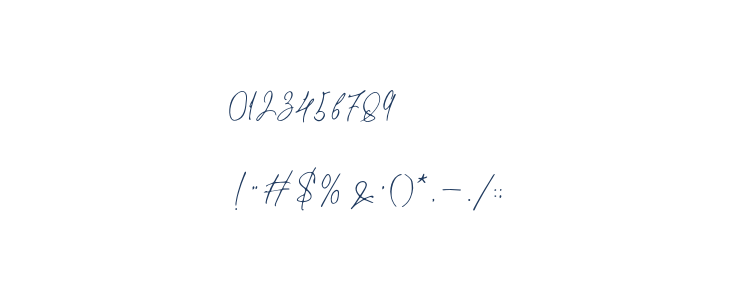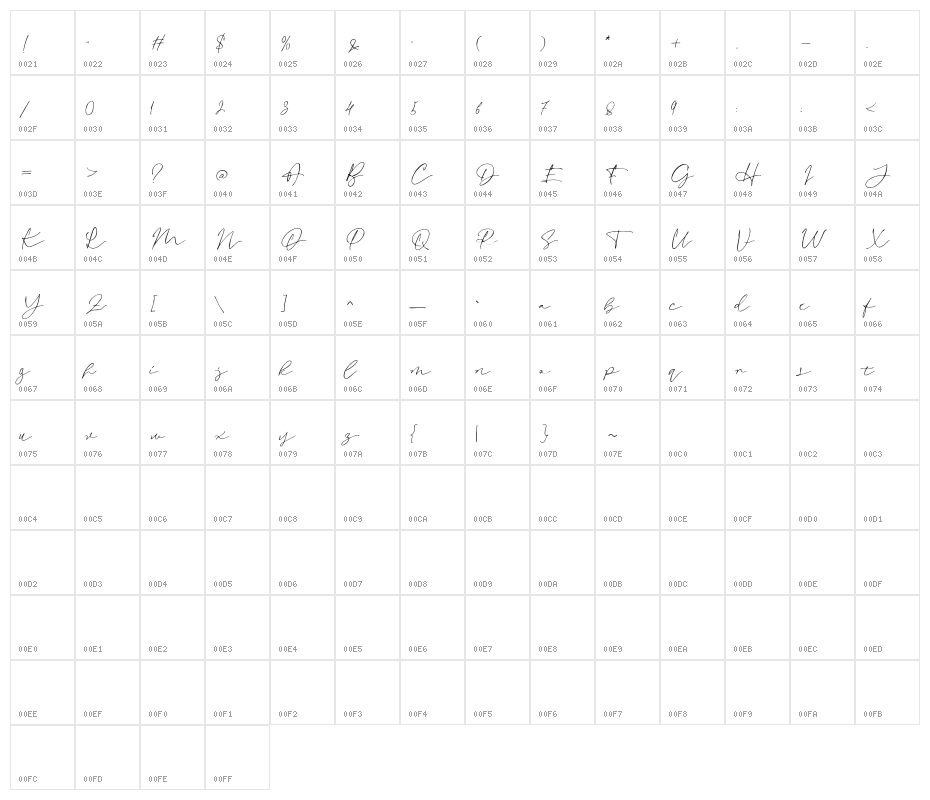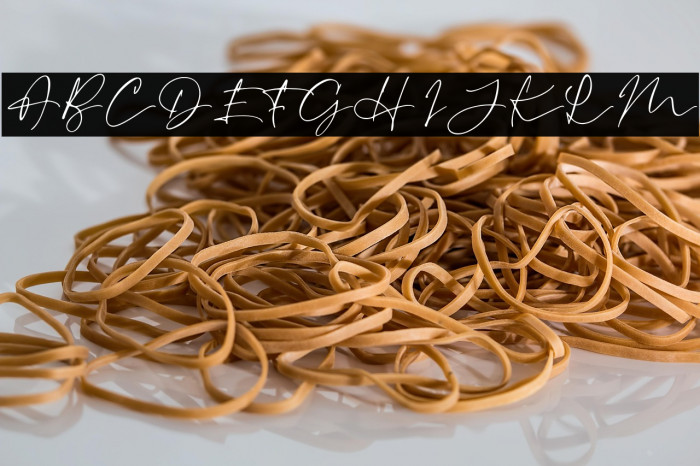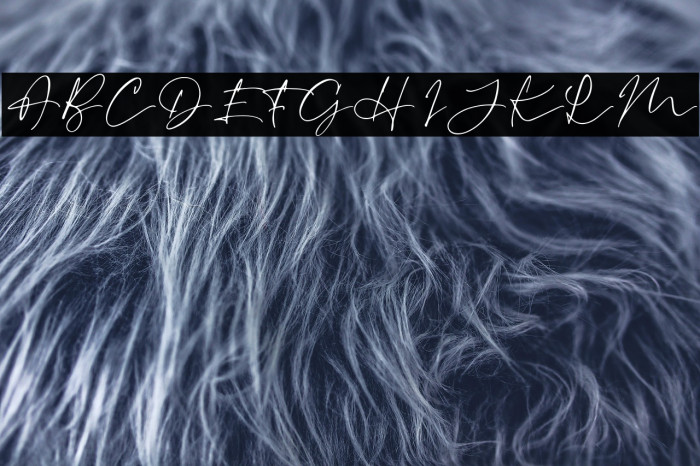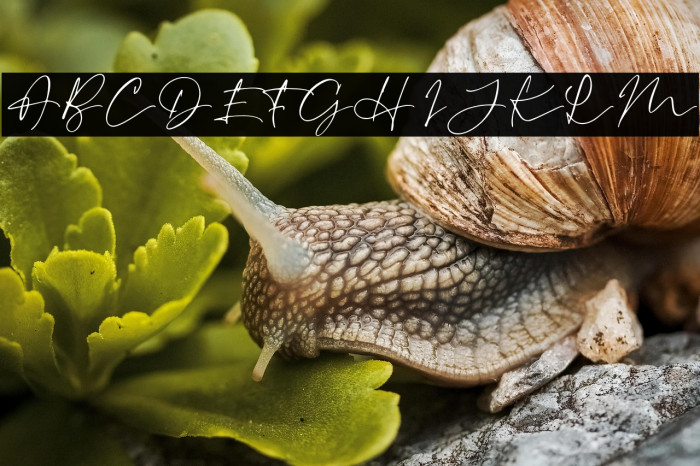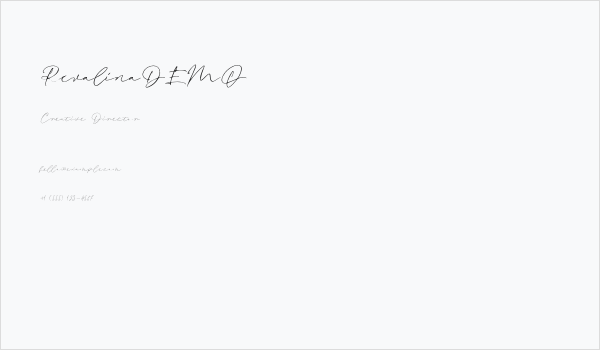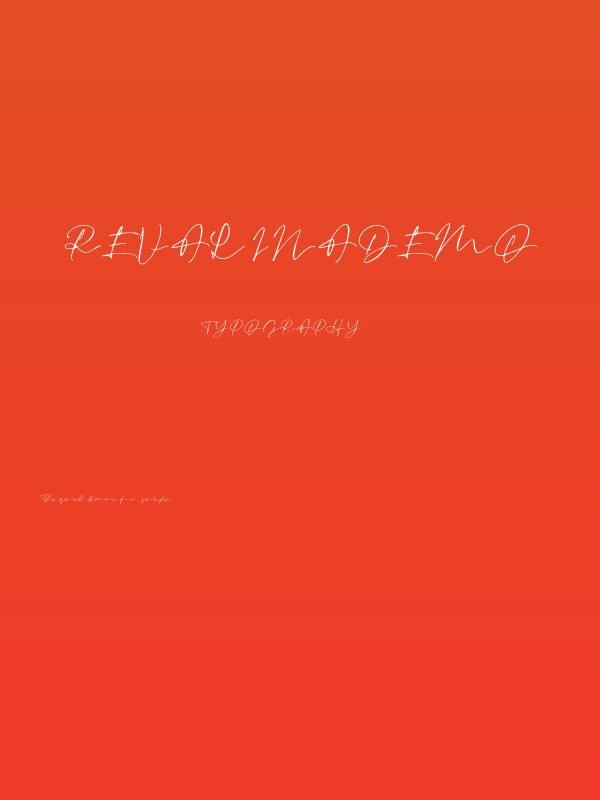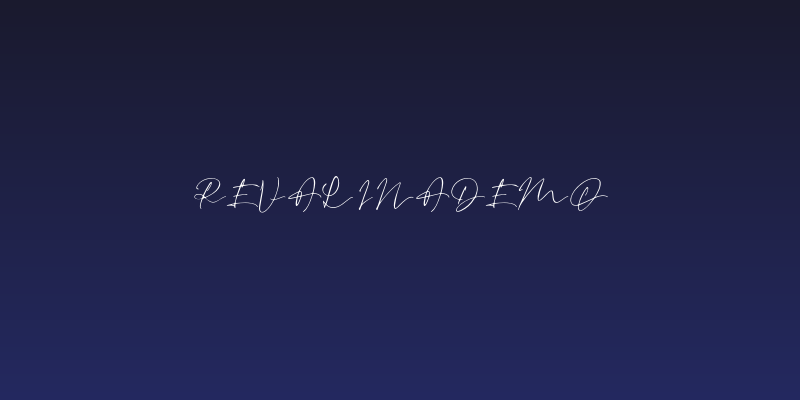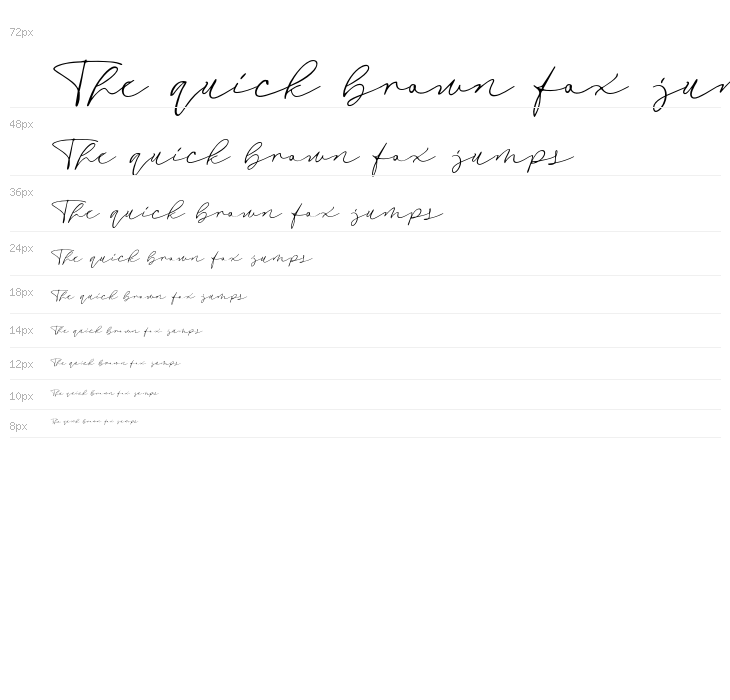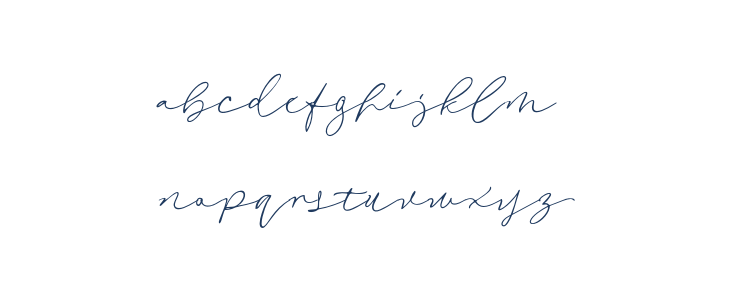
RevalinaDEMO Font
RevalinaDEMO Description
This font exhibits a flowing, cursive style that mimics elegant handwriting. The characters are interconnected, creating a seamless and fluid appearance. The uppercase letters are slightly more elaborate, with extended loops and flourishes, while the lowercase letters maintain a consistent, smooth flow. The numerals and special characters are designed to complement the script style, maintaining the same thin, delicate strokes. This font exudes a sense of sophistication and grace, making it ideal for projects that require a personal touch.
| Overall Style | Elegant, Handwritten |
| Proposed Projects | Ideal for wedding invitations, personal branding, greeting cards, and elegant stationery. |